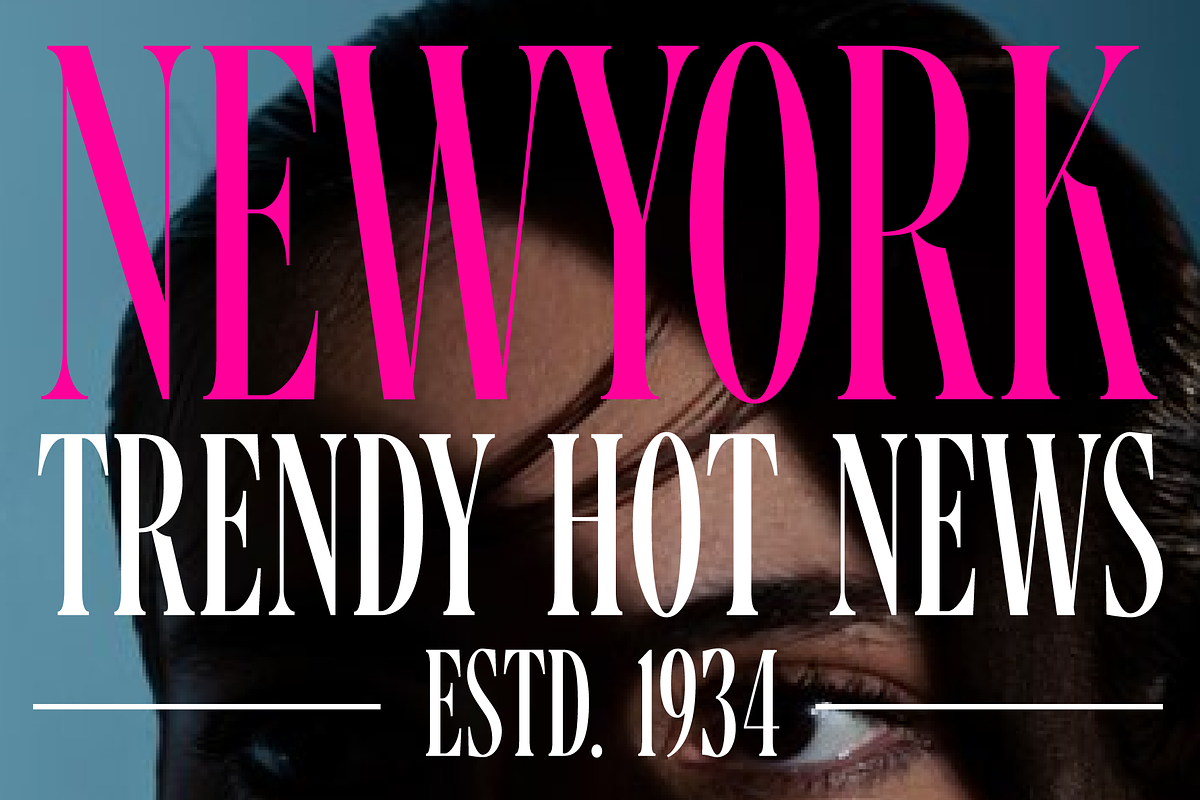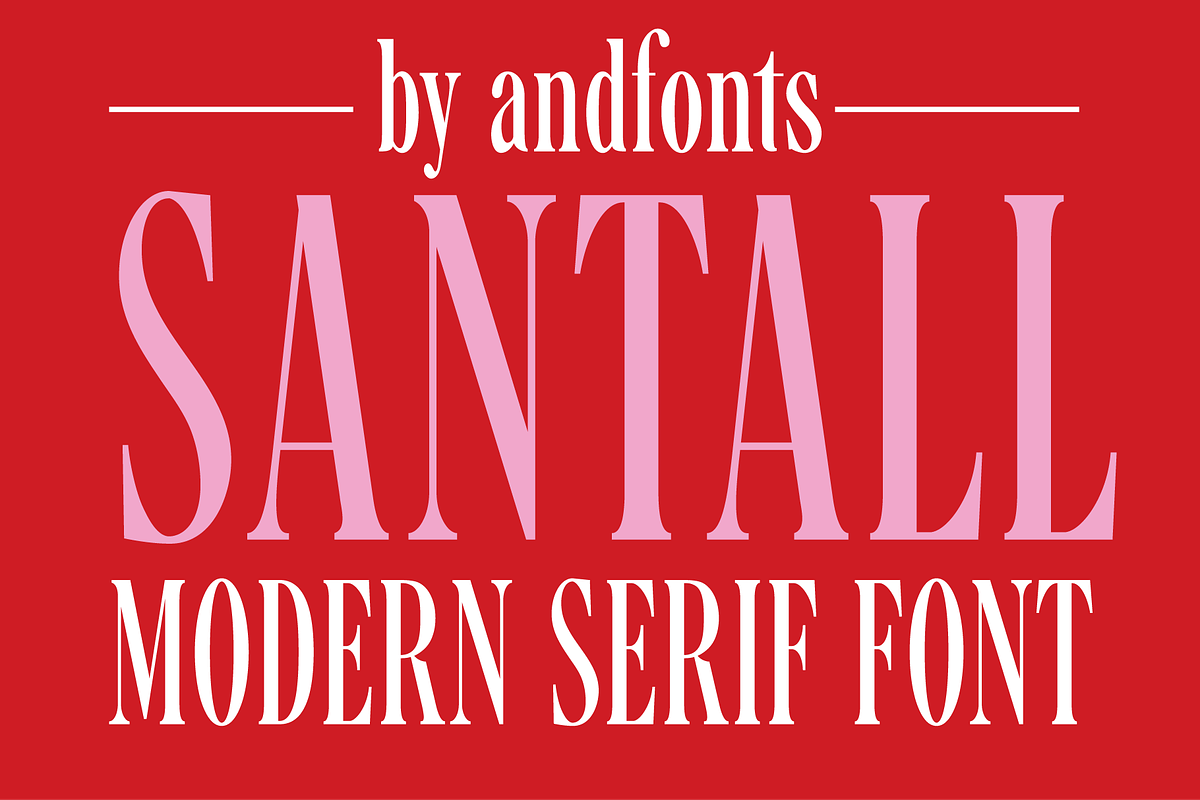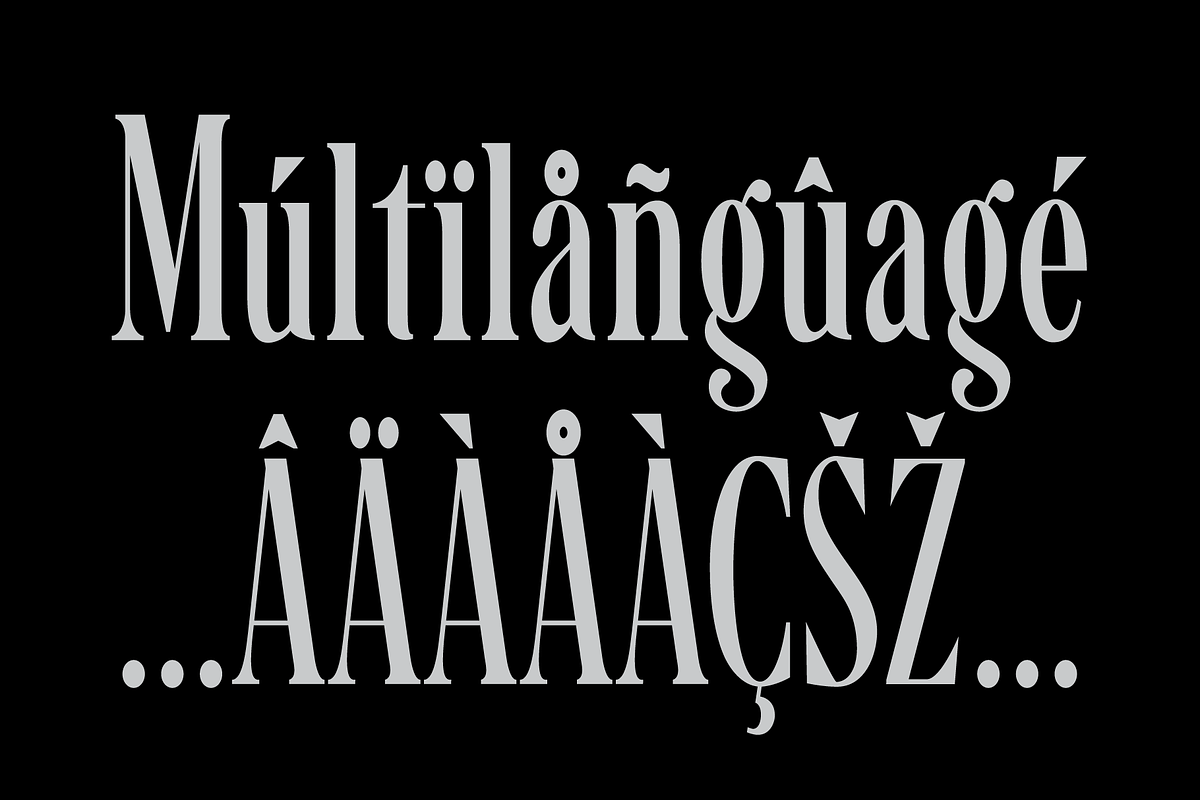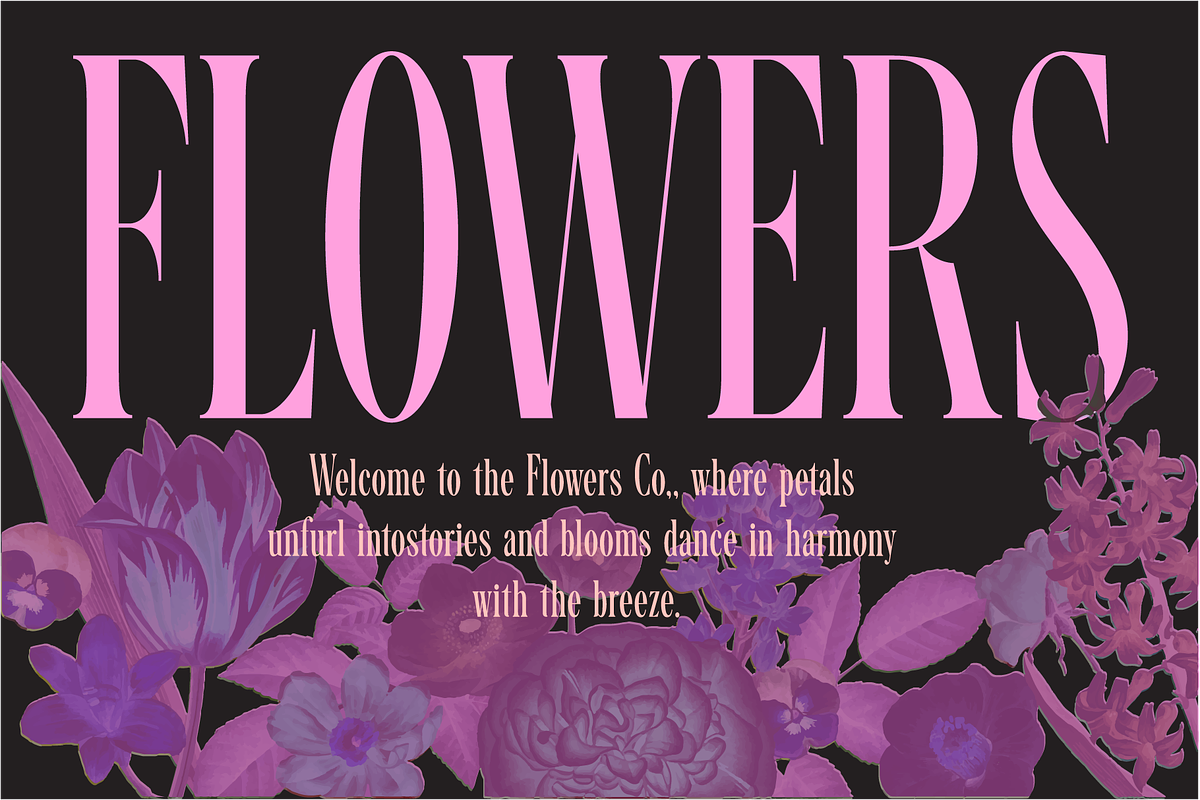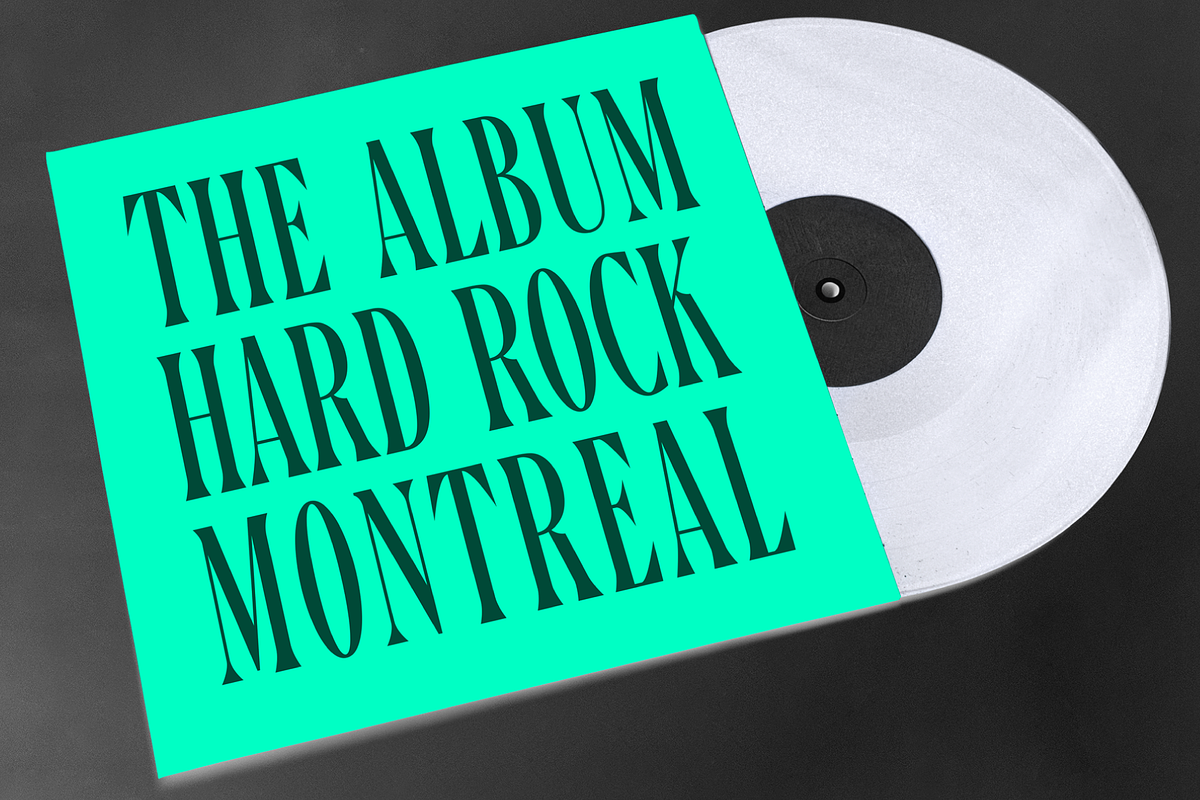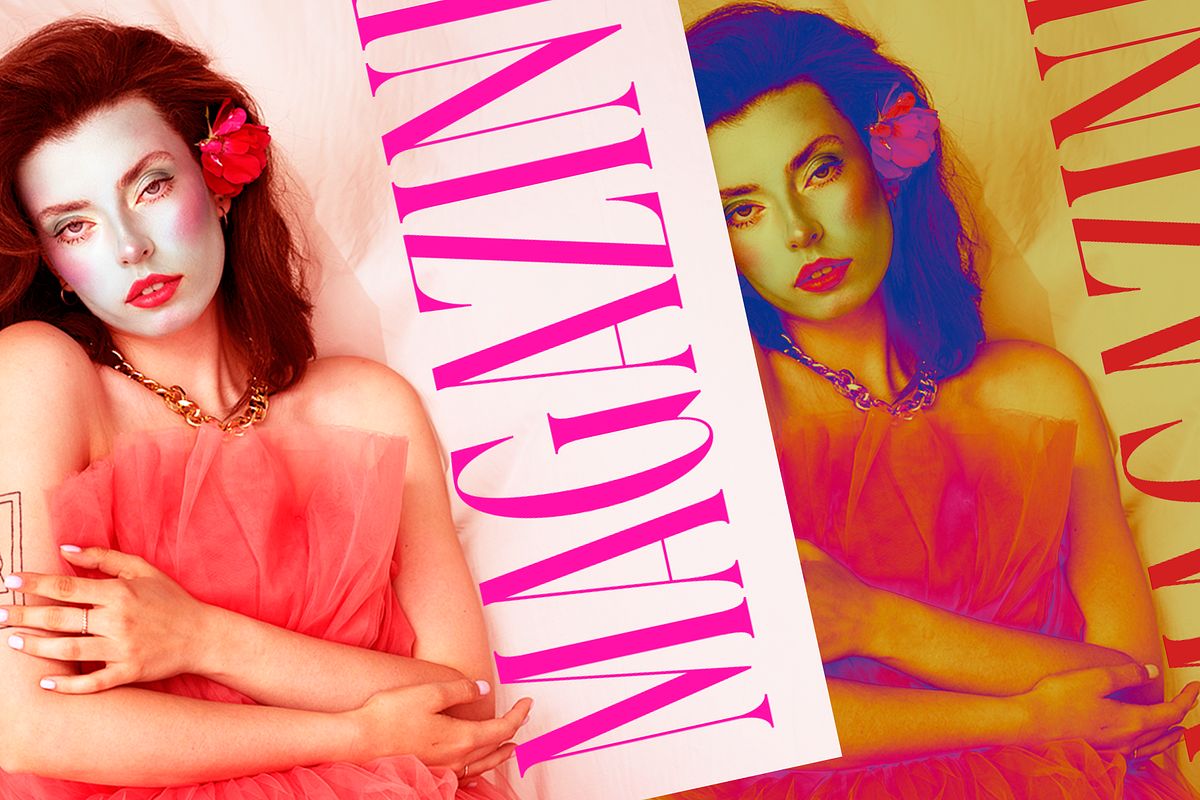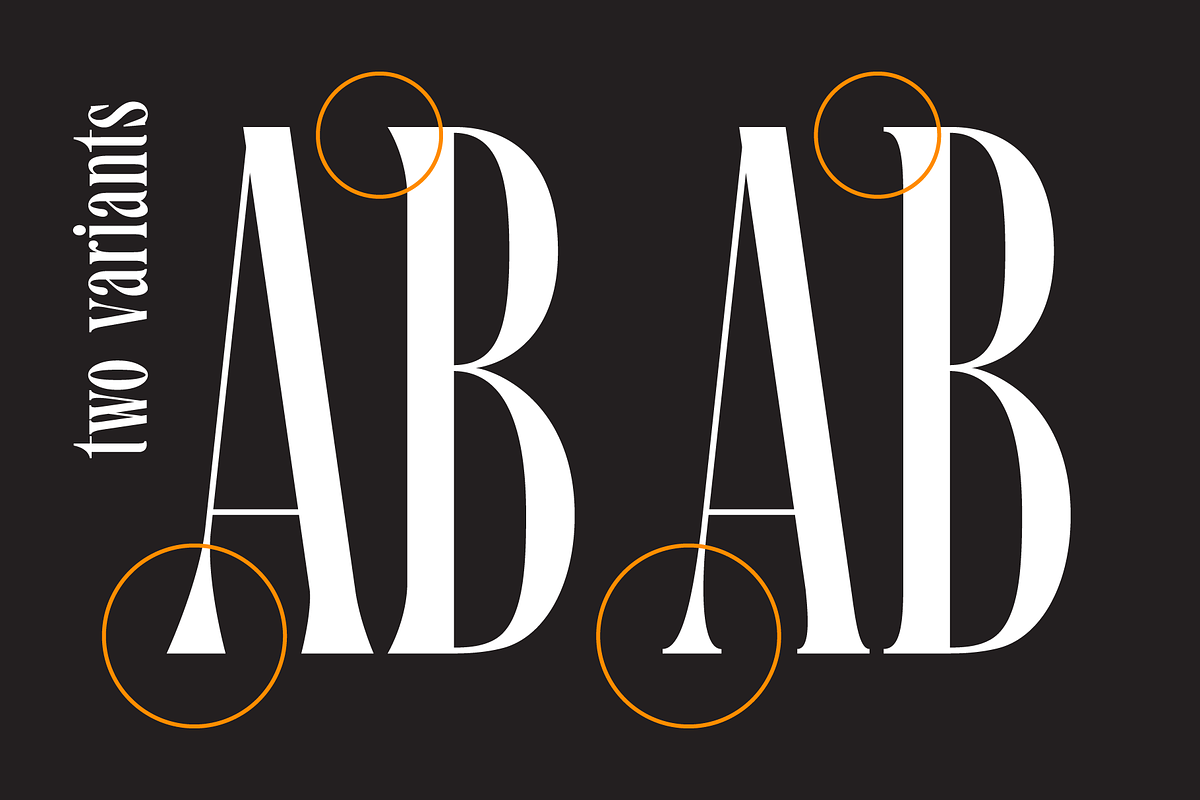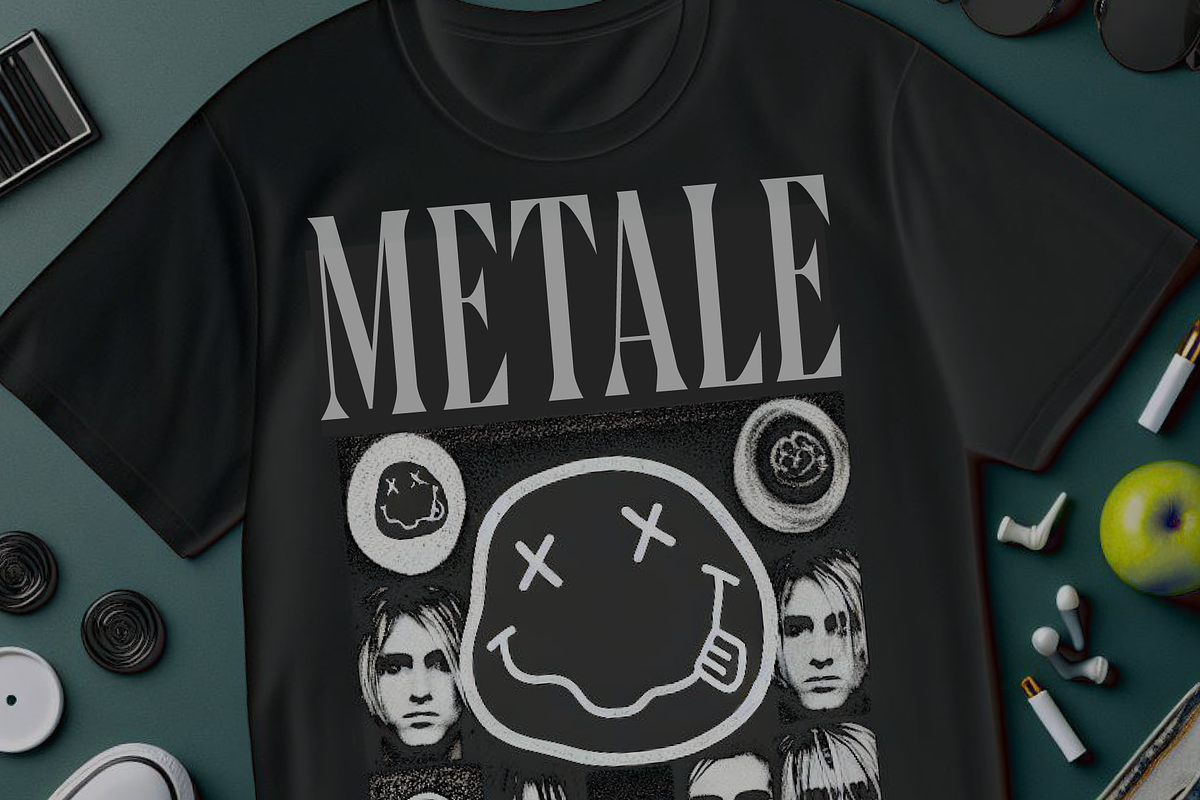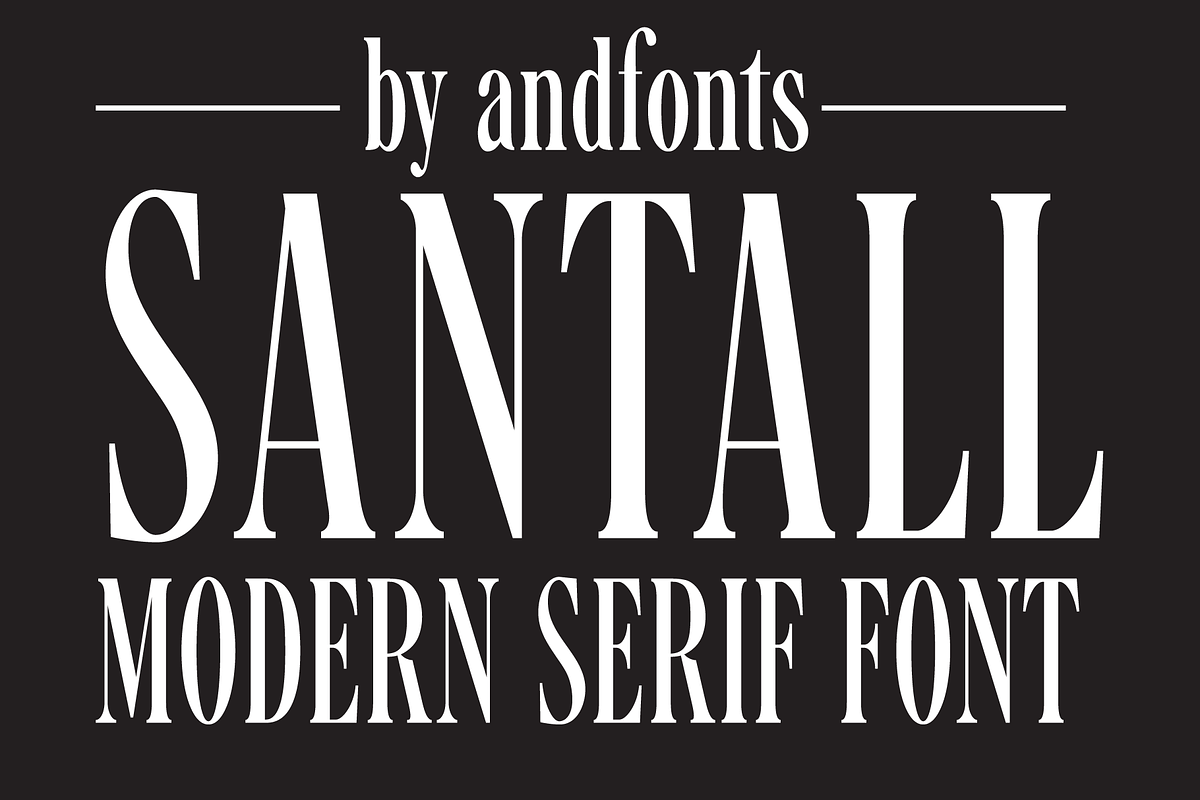
Santall: Modern Serif Font
Santall: Modern Serif Font. Introducing a rich and versatile font boasting four styles and two substyles, perfect for crafting captivating posters, stylish labels, and eye-catching t-shirts, etc. Embodying timeless American tradition, this font blends beauty with functionality, offering a gender-neutral appeal suitable for a wide range of projects.